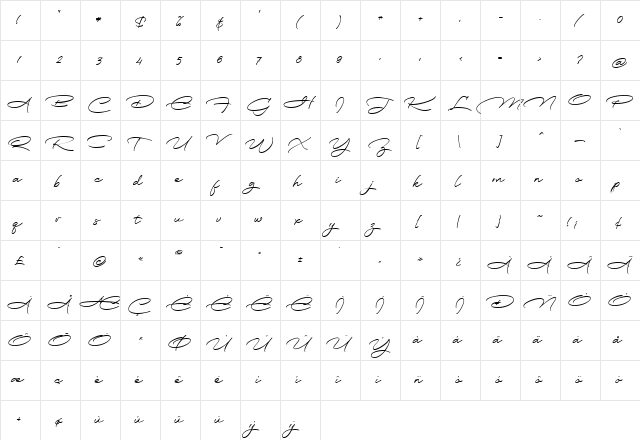
Monday Routines Regular Font Preview
Monday Routines Regular
Monday Routines Regular Font Details
| Foundry | Walkeren |
| Designer | Didi Syarif |
Design Context for Monday Routines Typeface
Monday Routines is a composed and adaptable typeface that performs quietly and consistently across a wide range of design contexts.